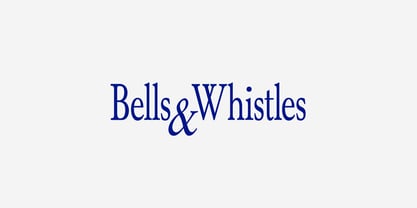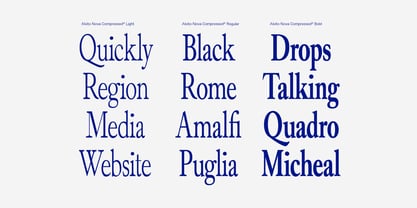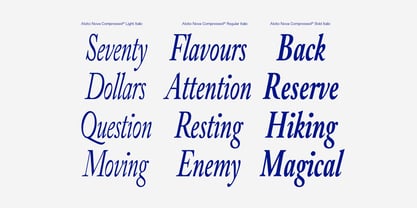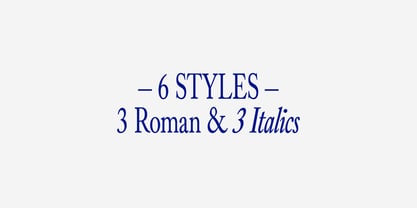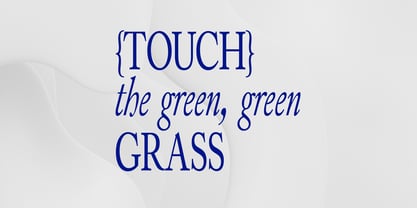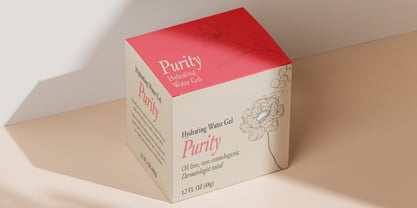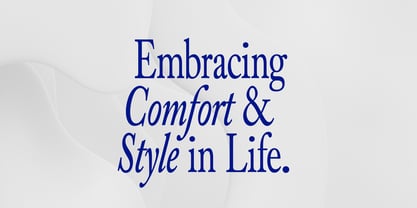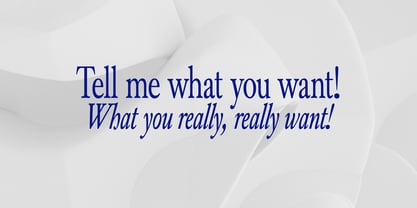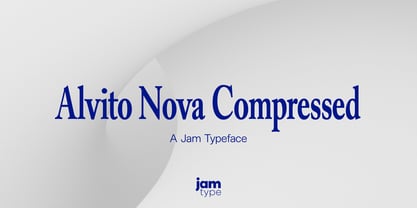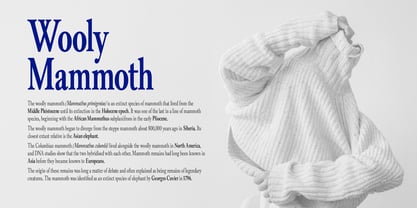
Alvito Nova Comp
by JAM Type Design
Alvito Nova Comp Font Family was designed by João Symington and published by JAM Type Design. Alvito Nova Comp contains 6 styles family package options.
Introducing Alvito Nova Compressed – A Refined Serif Typeface with a Striking Presence.
Building upon the timeless elegance of Alvito Nova, Alvito Nova Compressed brings a sleek, space-efficient refinement to the classic serif form. Designed for impact, this sophisticated type family features narrow, precisely crafted letterforms that exude authority and grace while optimizing space without compromising readability.
Perfectly suited for editorial design, luxury branding, high-end packaging, and digital applications, this compressed serif strikes a balance between tradition and modernity. Its streamlined structure makes it ideal for headlines, mastheads, and logotypes where presence and legibility are key, especially in constrained layouts.
With its tall, elegant proportions and finely tuned serifs, Alvito Nova Compressed delivers sophistication in a compact form, making it a powerful choice for designers who demand both refinement and efficiency. Whether in print or digital, this type family ensures your typography stands out with poise, prestige, and timeless appeal.
Refine your design language with Alvito Nova Compressed – where elegance meets precision.